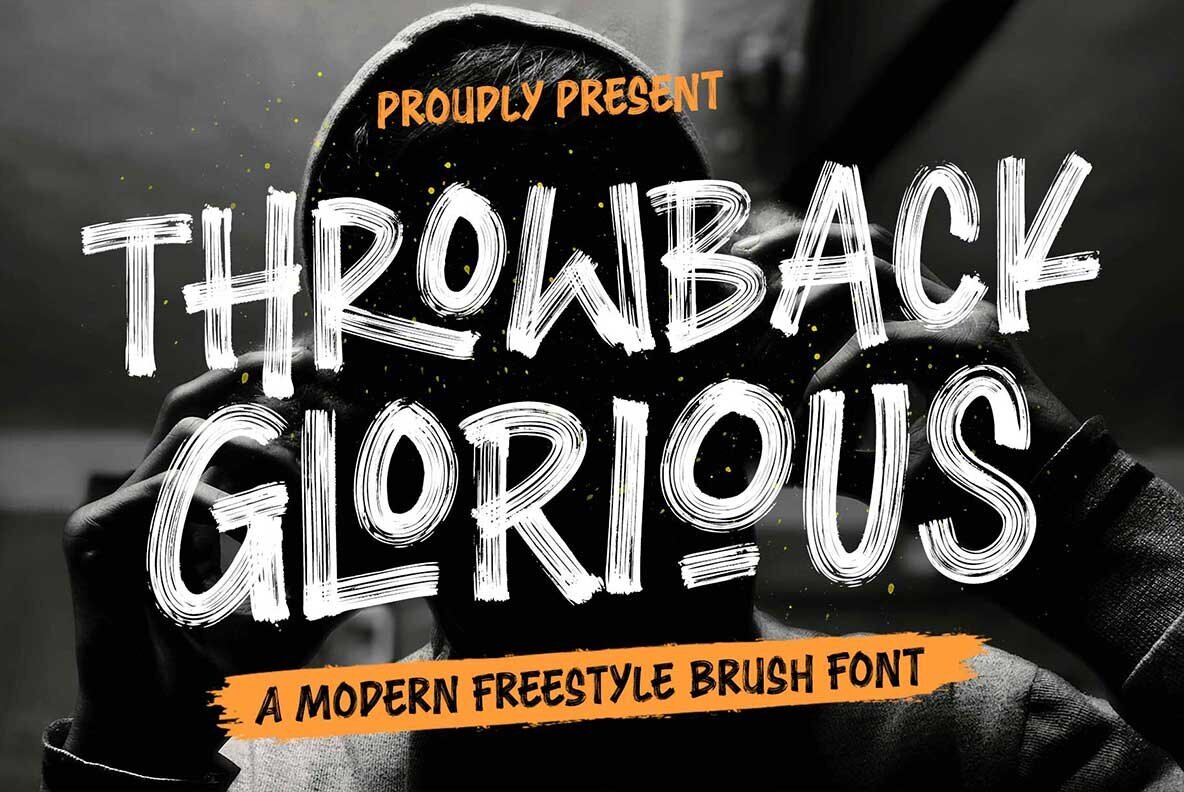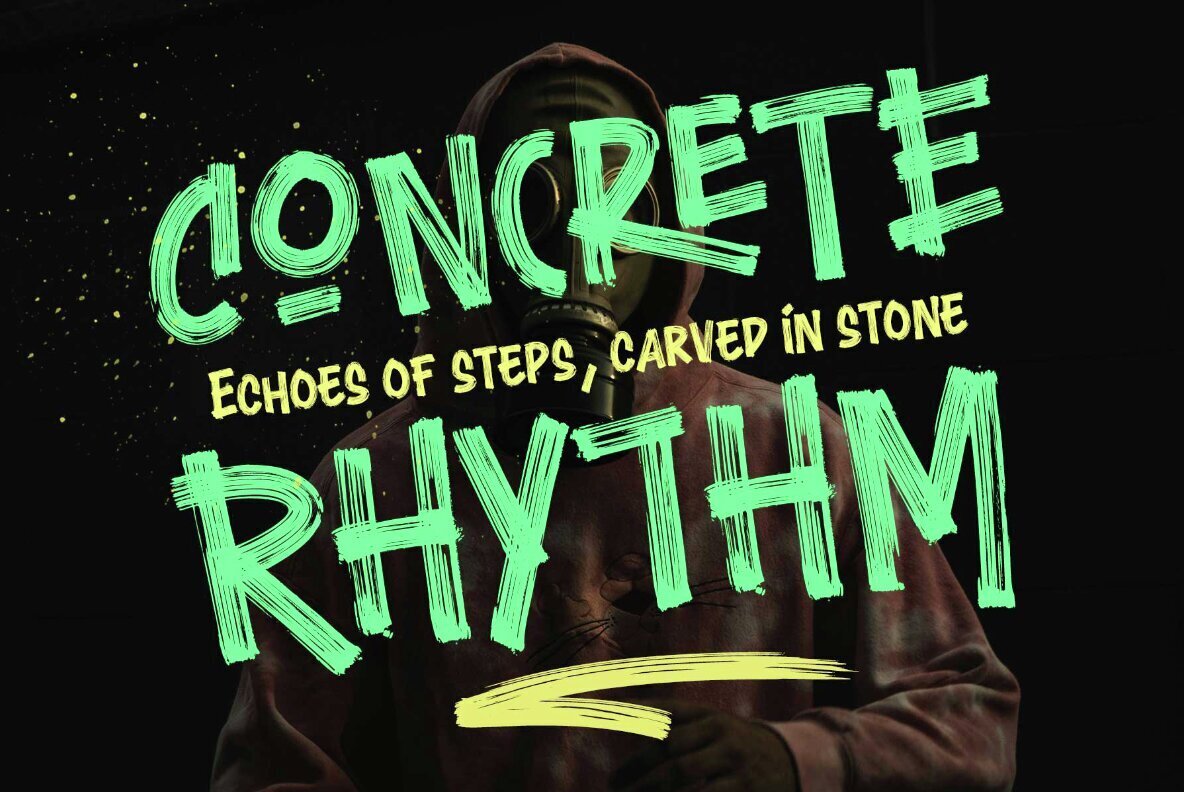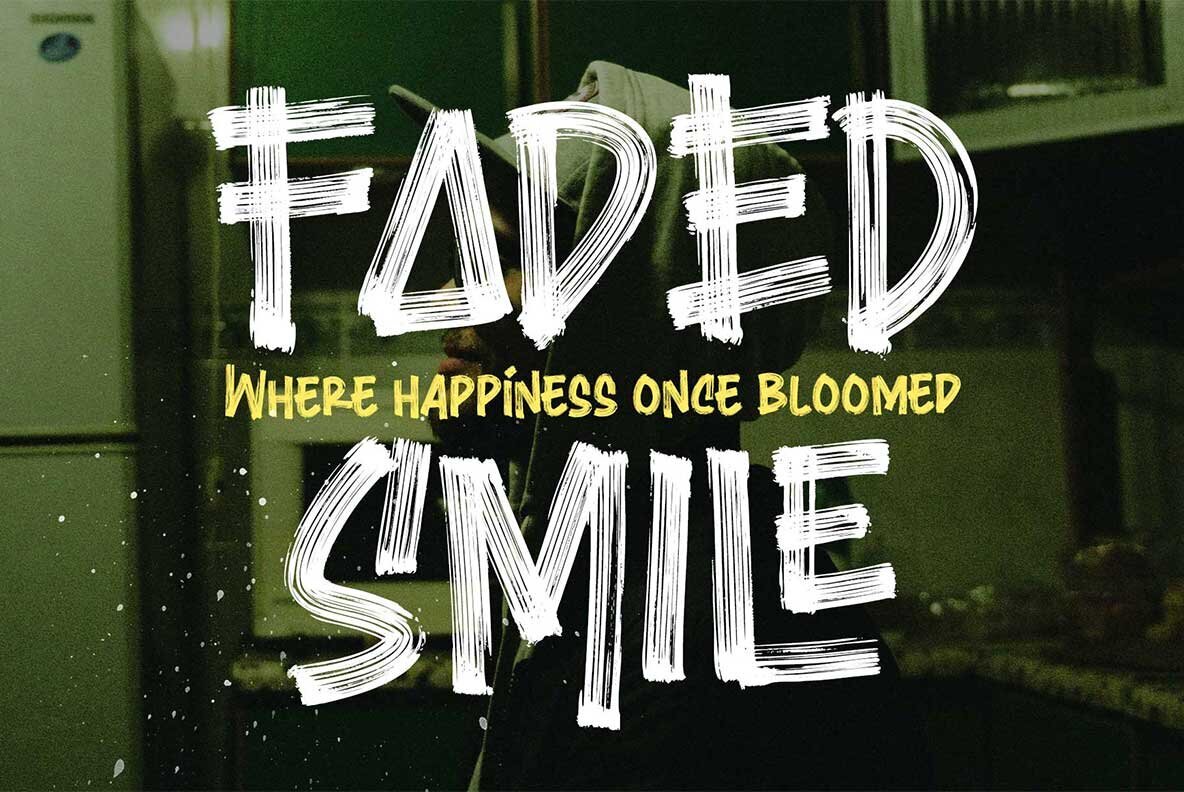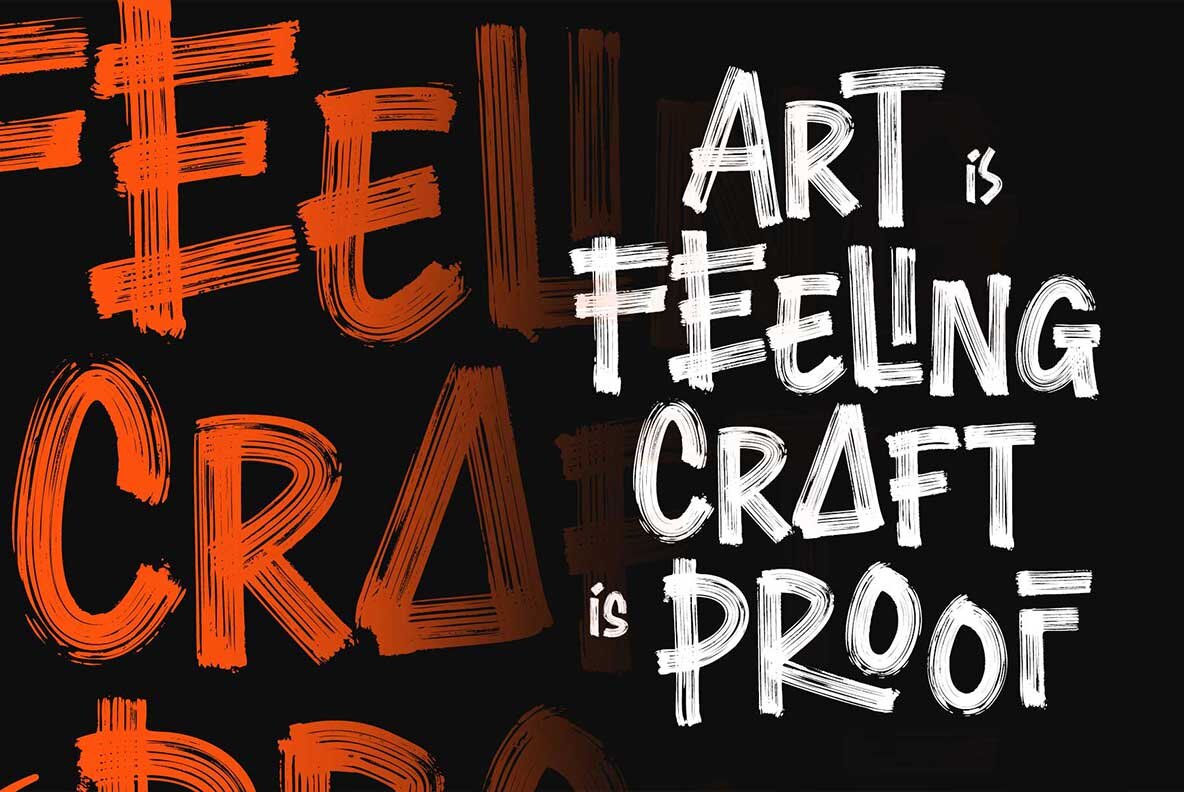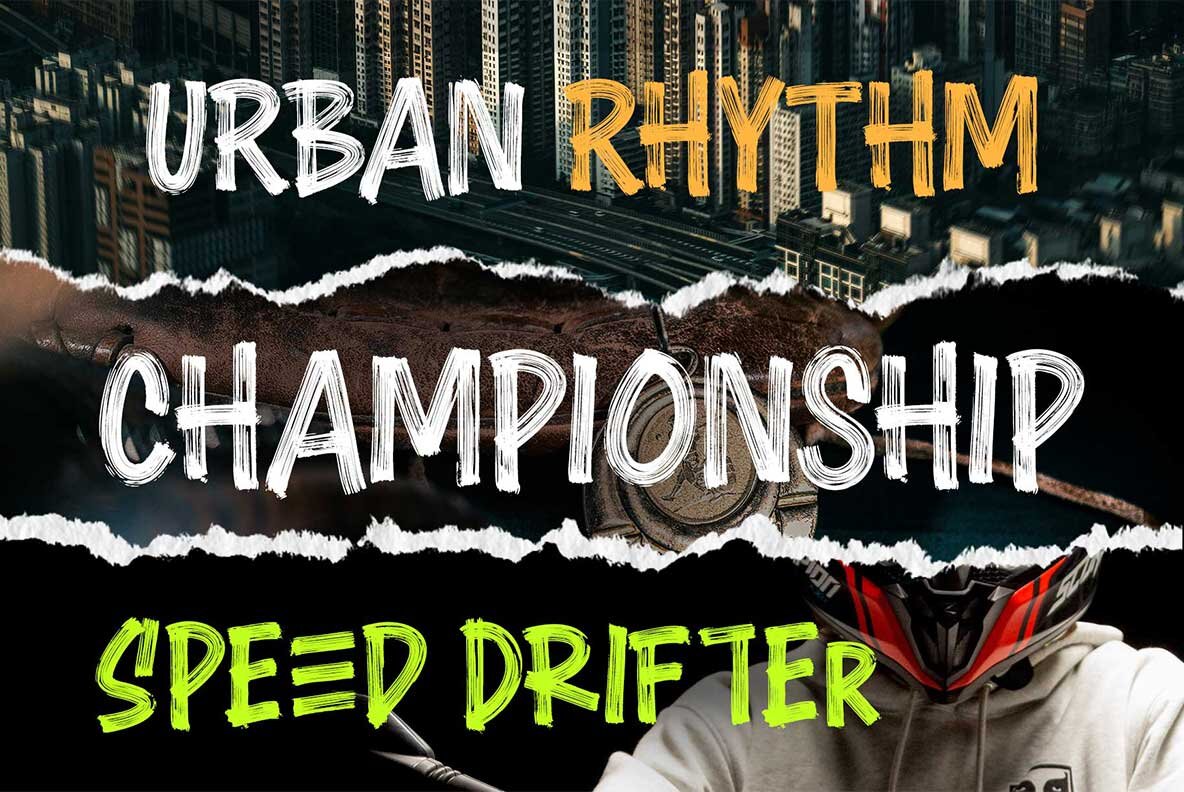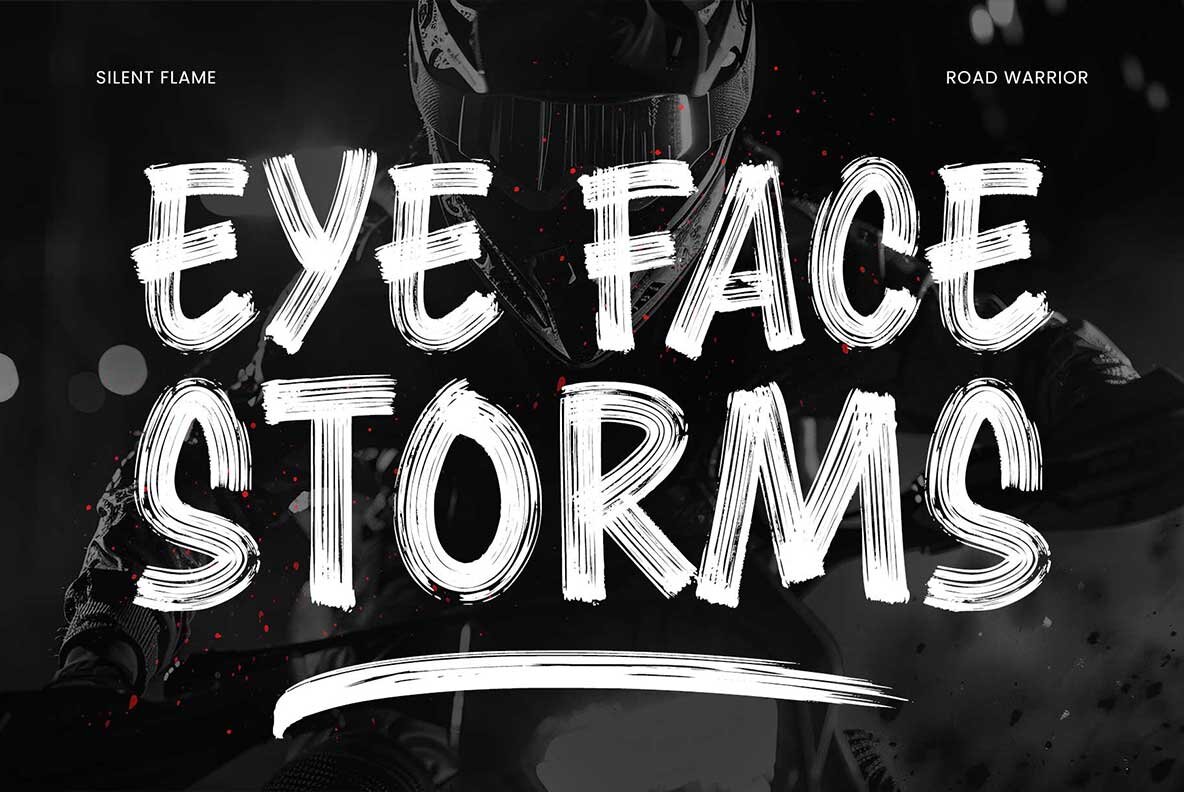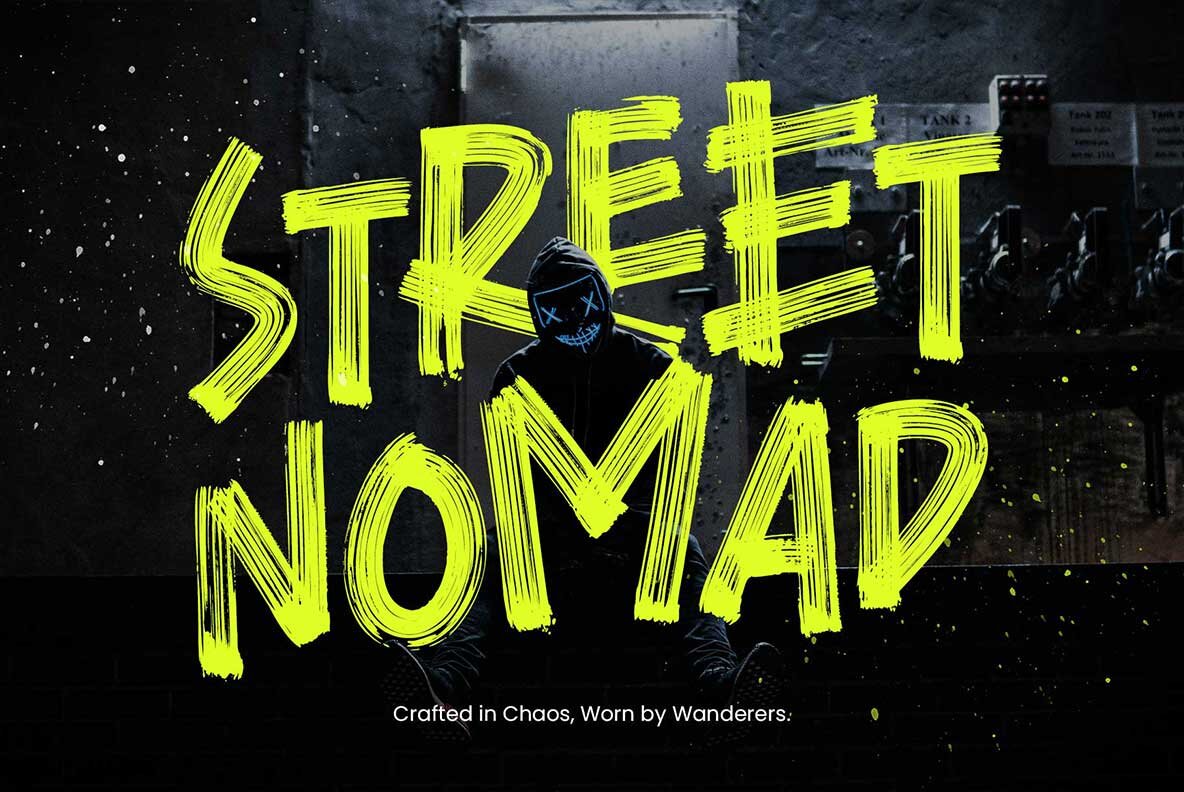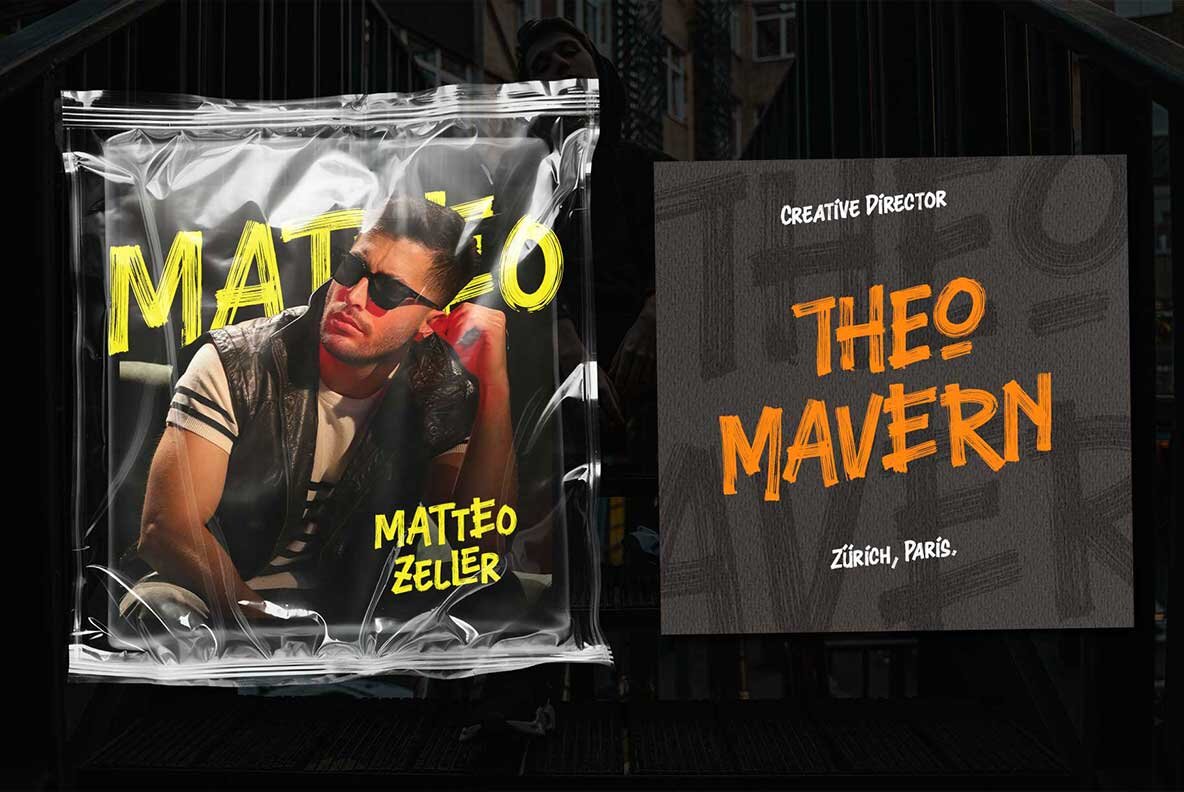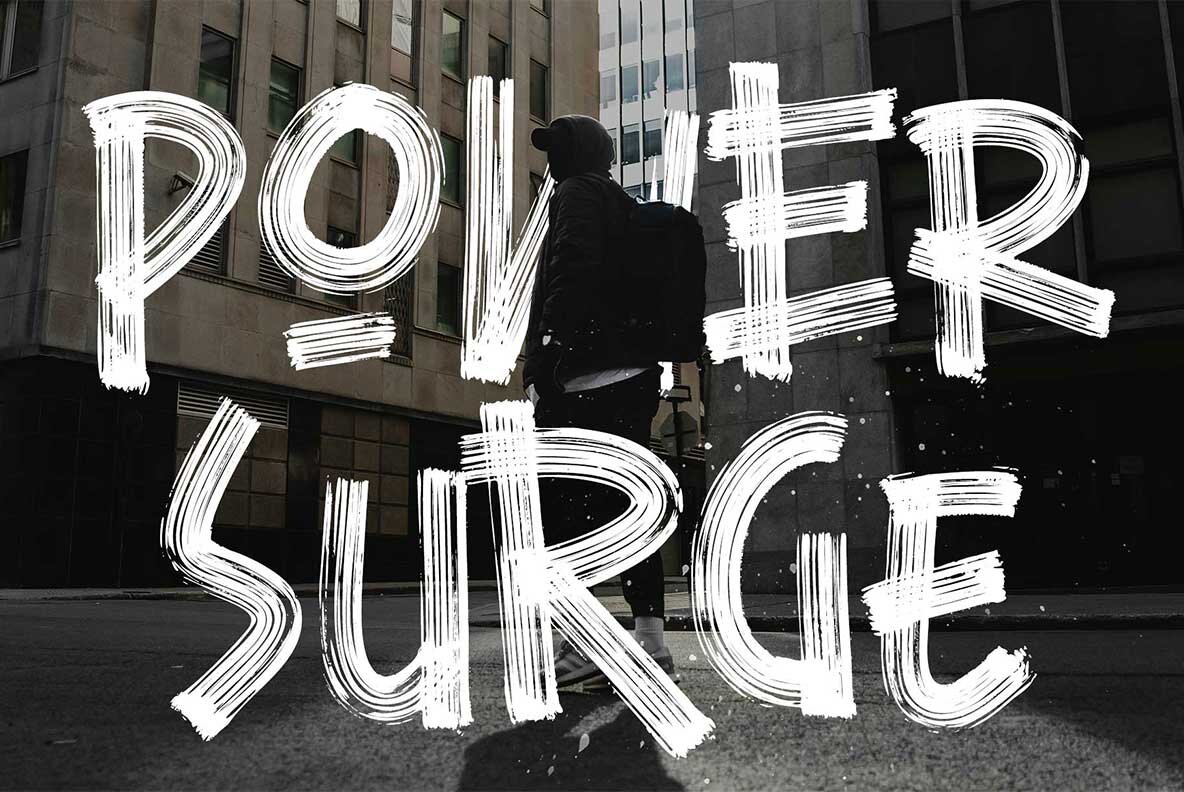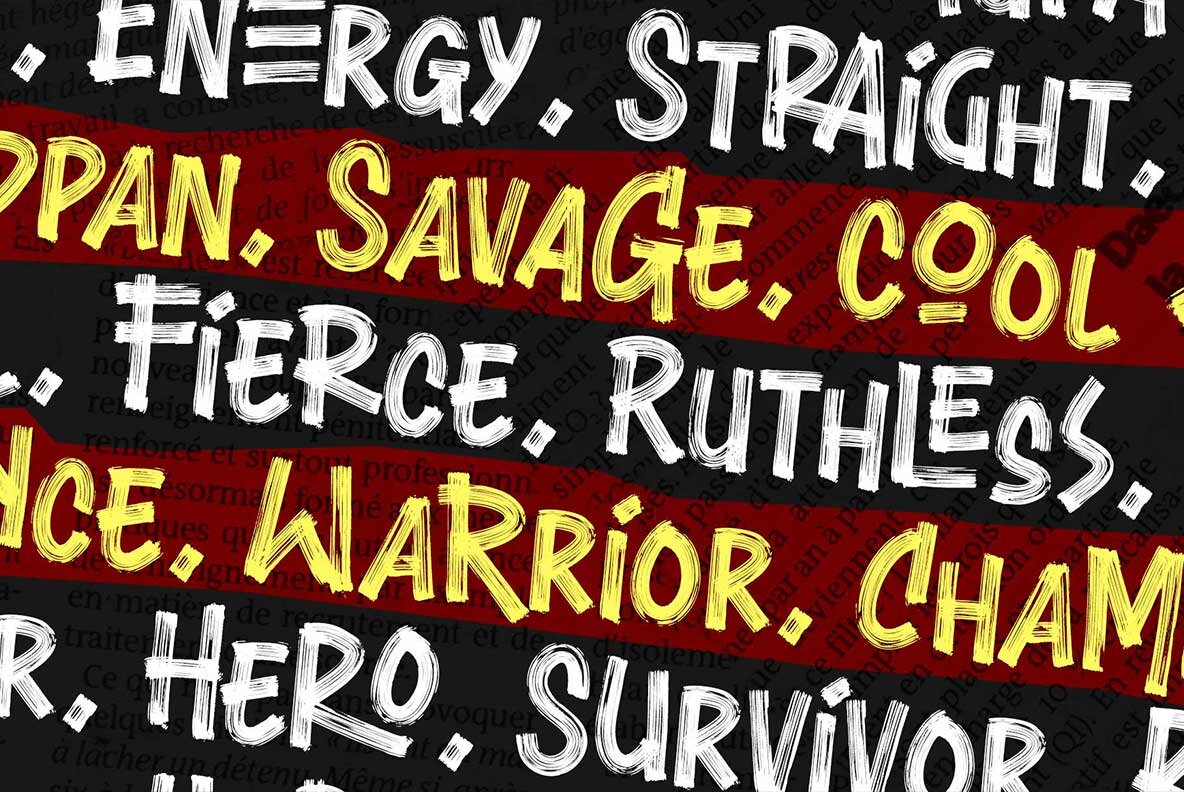
Throwback Glorious Font
Throwback Glorious Regular
Throwback Glorious is a raw, expressive handwritten font designed with dynamic dry brush strokes and vibrant textures. This freestyle brush typeface draws inspiration from the high-energy realms of street art and freestyle calligraphy, making it bold and unapologetic. Each stroke is infused with personality, energy, and strength, ensuring your message is conveyed with impact and emotion. Ideal for posters, branding, logos, headlines, and labels, Throwback Glorious seamlessly integrates into themes like sports, streetwear, urban culture, cyberpunk, fashion, and packaging design. Its versatility makes it a perfect choice for any creative project that demands attention and flair.Throwback Glorious Font: Embrace Your Bold Side